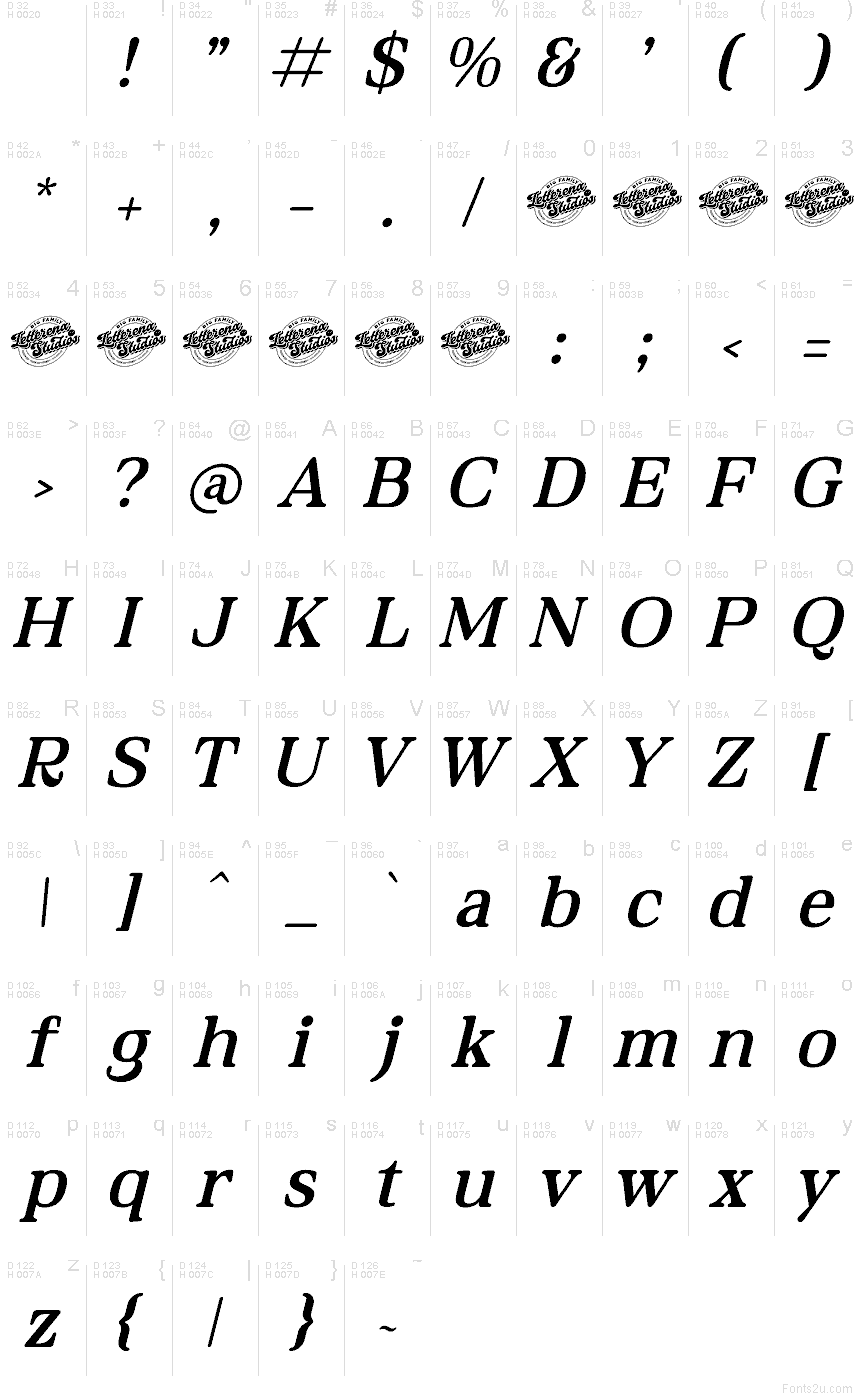
Melgike Dream DEMO VERSION Italic
Melgike Dream Italic font by Letterena Studios is a free serif typeface with a lush, editorial slant that instantly feels romantic and polished. Its flowing curves, firm verticals, and slightly compressed letters create a sense of motion, like ink pulled quickly across smooth paper. The overall texture is refined but not stiff, giving headlines and wordmarks a graceful, confident voice that’s easy to read at larger sizes.
Using Melgike Dream Italic, you can give wedding invitations, skincare or boutique logos, book covers, quote graphics, packaging, and magazine-style titles a cinematic, storybook charm. This free font shines when you let it breathe in generous tracking and pair it with a clean geometric sans for supporting copy. Set Melgike Dream Italic a bit larger than usual to showcase its sweeping rhythm and elegant curves.